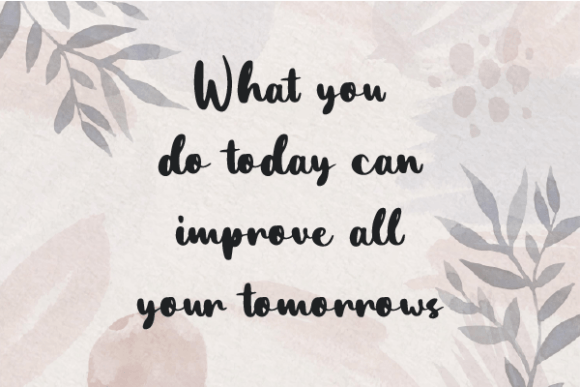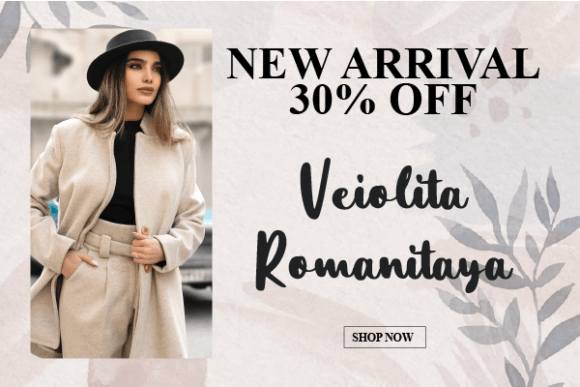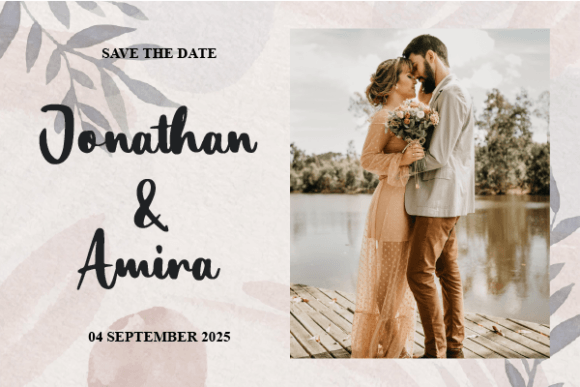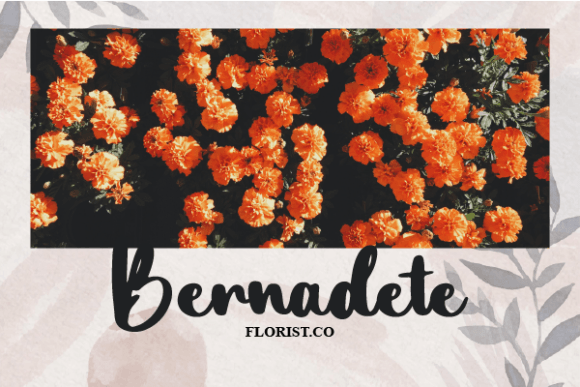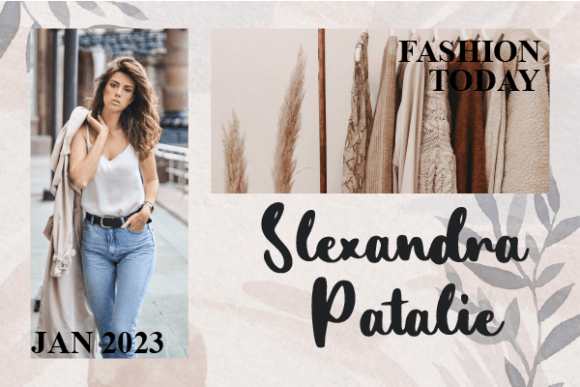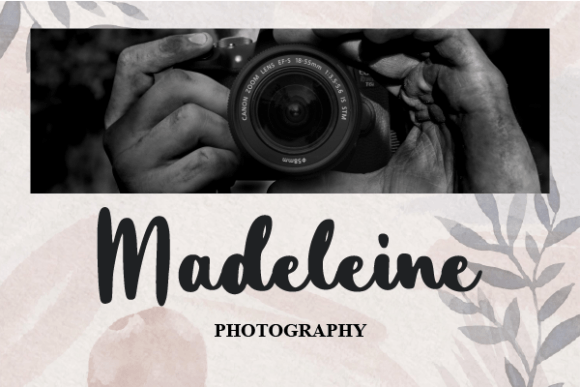
The Quest for the Perfect Font: Discovering Fiona Stephen
I still remember the frustration of working on a design project, hours spent searching for the perfect font, only to end up with something that just didn’t feel right. My client wanted a logo that was both elegant and playful, and I was determined to deliver. That’s when I stumbled upon Fiona Stephen, a lovely and timeless handwritten font that has since become a staple in my design toolkit.
Fiona Stephen: A Timeless Handwritten Font
Fiona Stephen is a beautiful, handwritten font that is perfect for creating eye-catching logos, branding, and quotes. Every letter has a unique and beautiful touch, which will make your design come alive! It’s the perfect choice for designers, crafters, and creative hobbyists looking to add a personal touch to their work.
- ✨ Unique and beautiful letterforms that add a personal touch to any design
- 💫 Perfect for creating eye-catching logos, branding, and quotes
- 🎨 Great for use in a variety of design projects, from digital to print
While Fiona Stephen is an amazing font, there are a few things to keep in mind. ⚠️ Some users have reported issues with kerning, particularly when using the font at larger sizes. Additionally, the font may not be suitable for body text, as it’s best used for headings and titles.
🤔 One thing to note is that Fiona Stephen is a script font, and as such, it may not be the best choice for designs that require a more formal or traditional look.
The Story Behind Fiona Stephen
Fiona Stephen is a font designed with love and care by a talented type designer. The font is inspired by the beauty of handwritten script and the elegance of traditional typography. While the exact story behind the font is unclear, it’s evident that Fiona Stephen was created with the goal of providing a unique and beautiful font for designers and crafters.
Q: What is Fiona Stephen font?
A: Fiona Stephen is a lovely and timeless handwritten font, perfect for creating eye-catching logos, branding, and quotes.